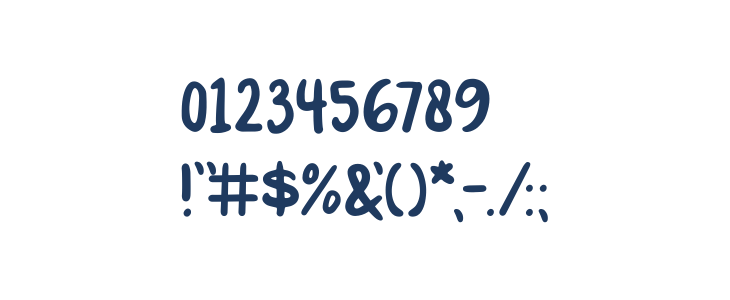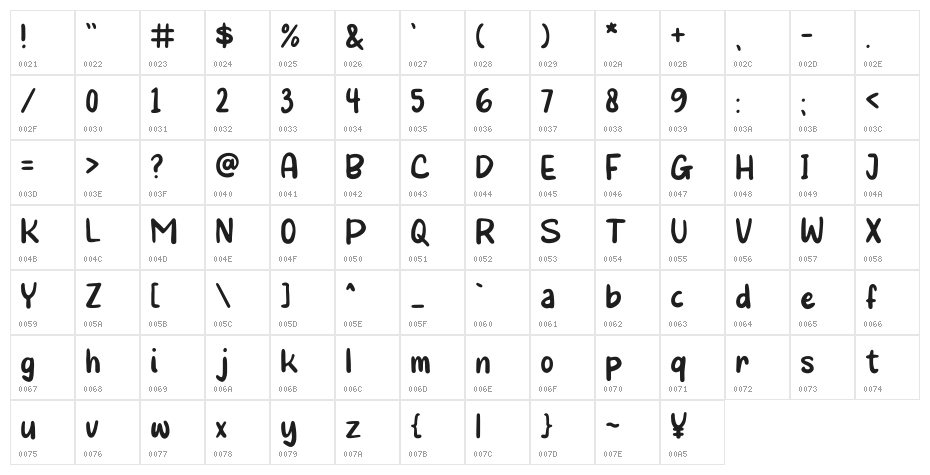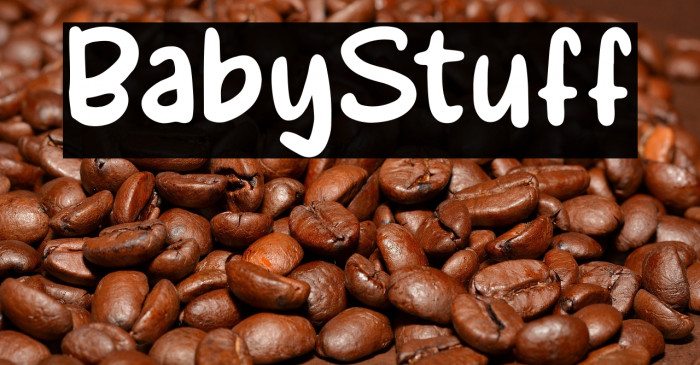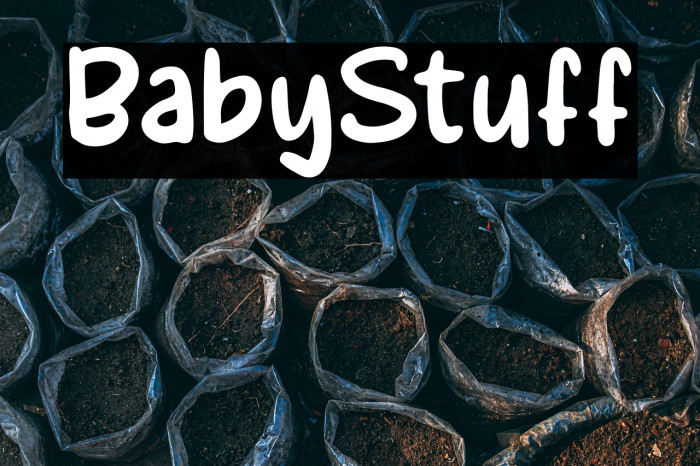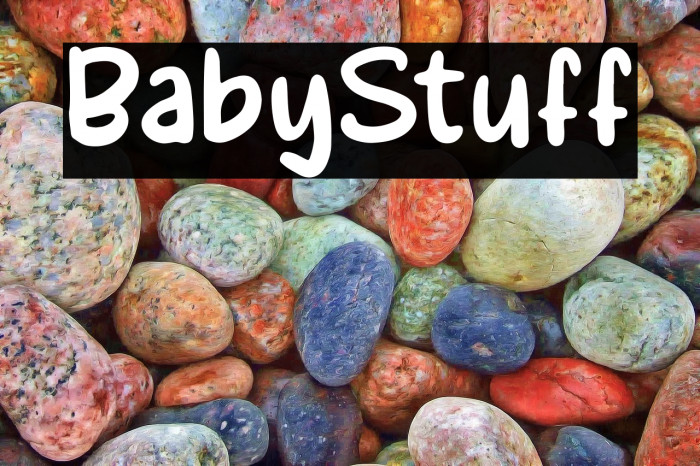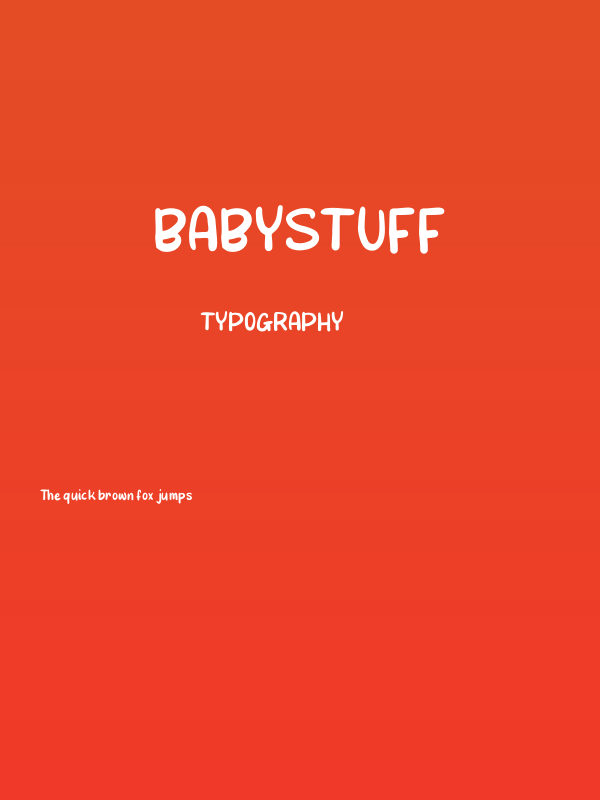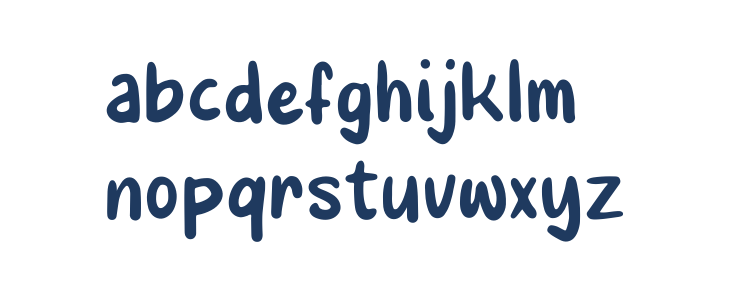
BabyStuff Font
BabyStuff Description
This playful and rounded font exudes a sense of fun and whimsy, making it ideal for child-friendly designs. The characters are bold and slightly irregular, giving them a hand-drawn appearance that adds to their charm. The uppercase and lowercase letters maintain a consistent style, with smooth curves and a slightly exaggerated width. Numbers and special characters are equally playful, ensuring a cohesive look across all text elements. The overall design is approachable and friendly, perfect for projects that aim to convey warmth and creativity.
| Overall Style | Playful |
| Use Case | Headlines, Logos, Children's materials |
| Proposed Projects | Ideal for children's books, toy packaging, playful branding, and educational materials. |